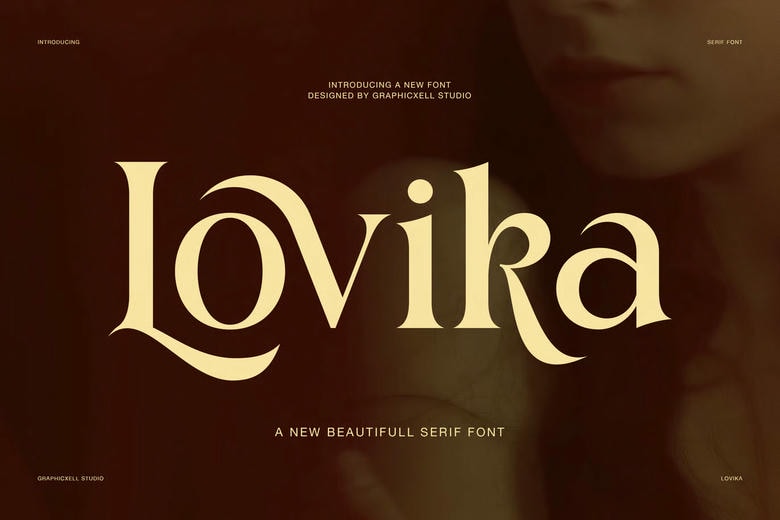
Lovika Font
Lovika Elegant Fashion Serif Font is a modern, luxurious typeface designed for stylish branding, fashion identities, and elegant editorial layouts.
Lovika takes inspiration from today’s fashion magazines and luxury boutiques. It works well for logos, headlines, packaging, and editorial designs.
Lovika features smooth ligatures, clean uppercase letters, and elegant alternates. You can use it for fashion branding, wedding invitations, social media posts, magazine covers, or luxury packaging.
Lovika Elegant Fashion Serif Font